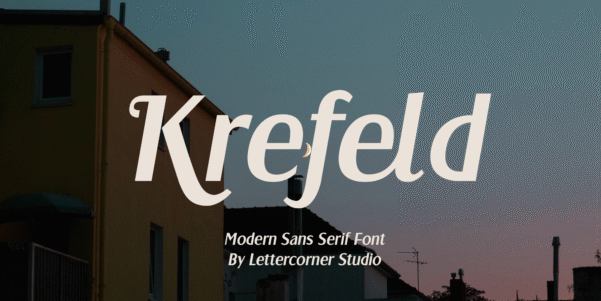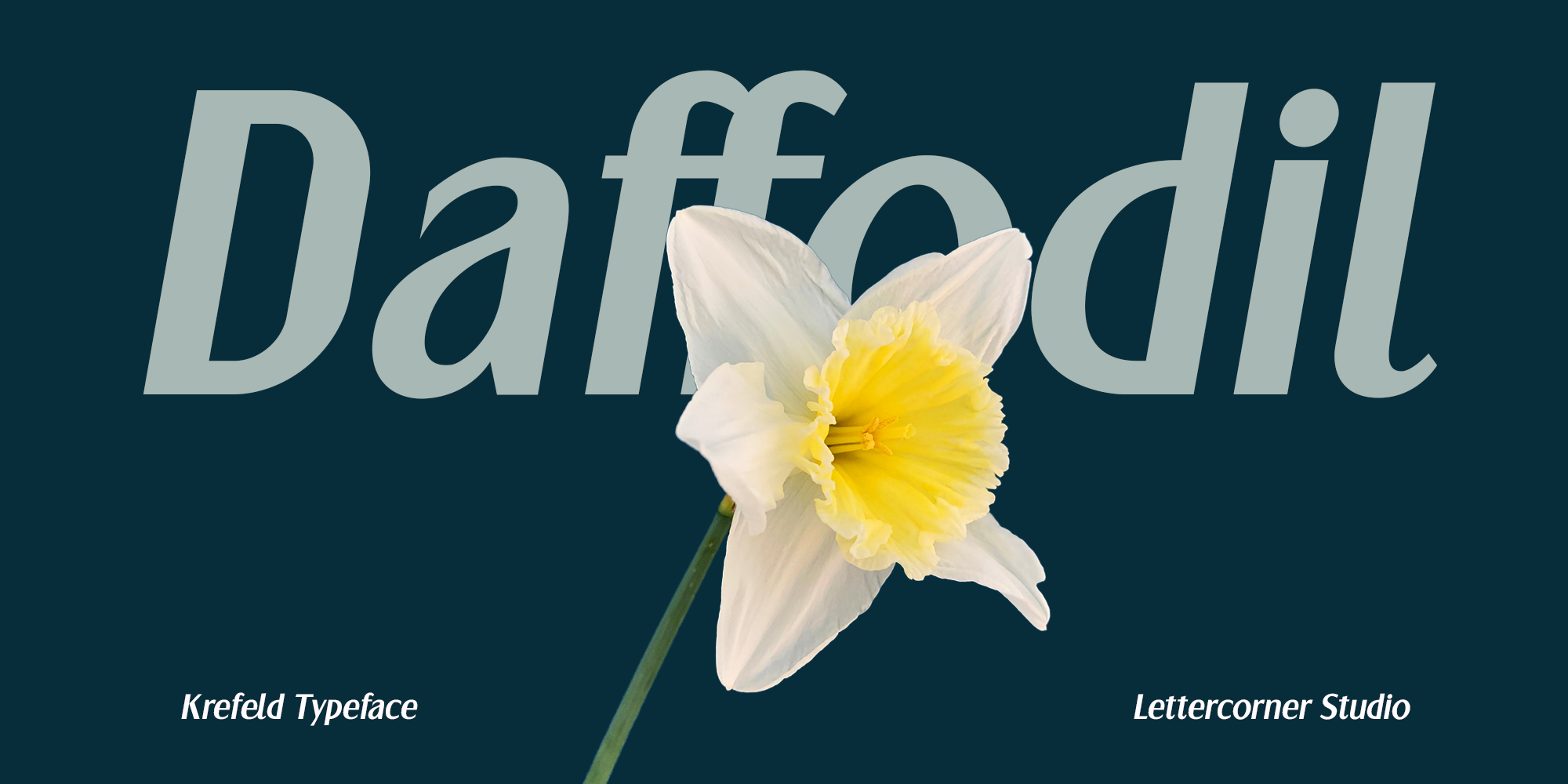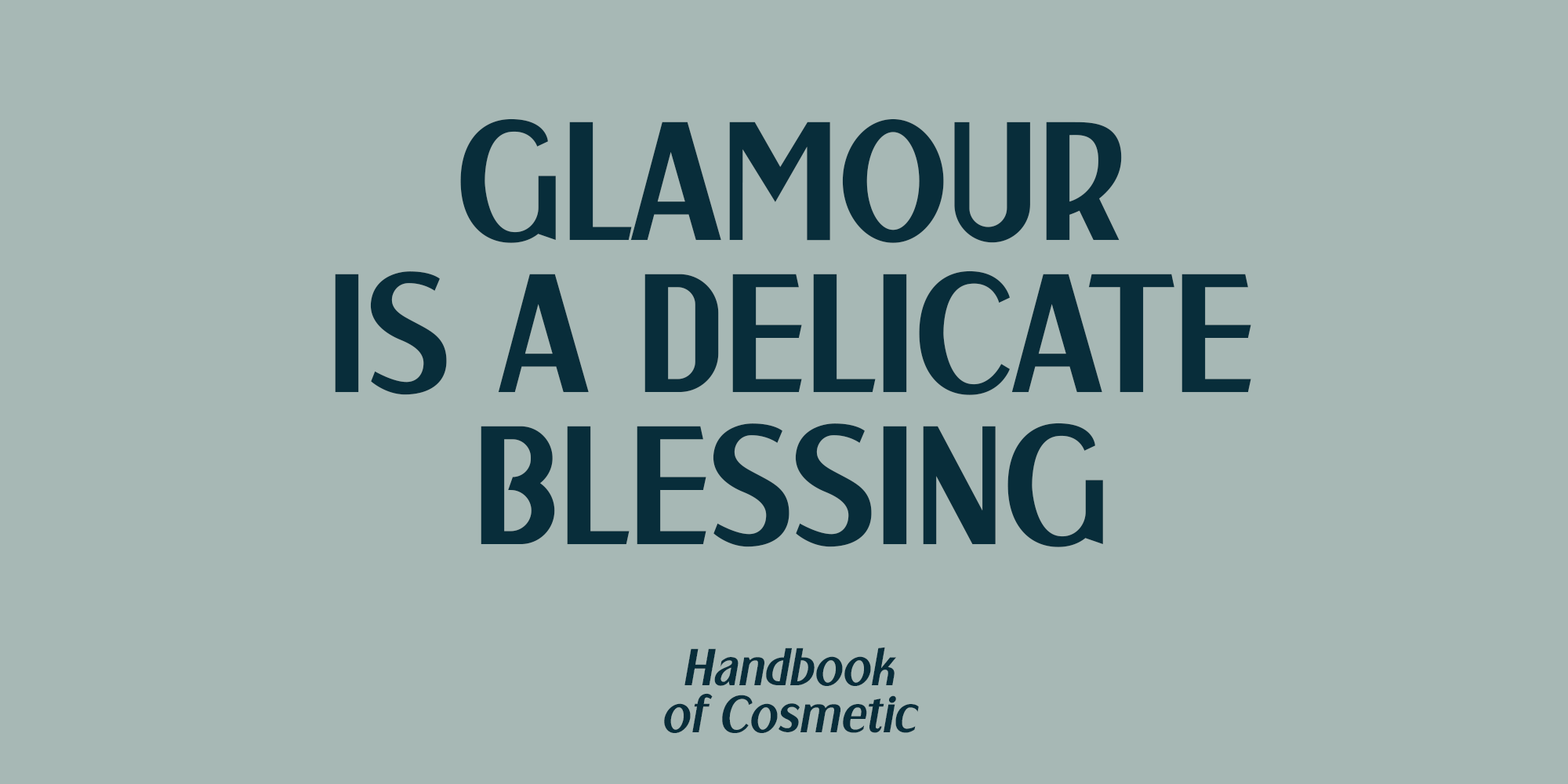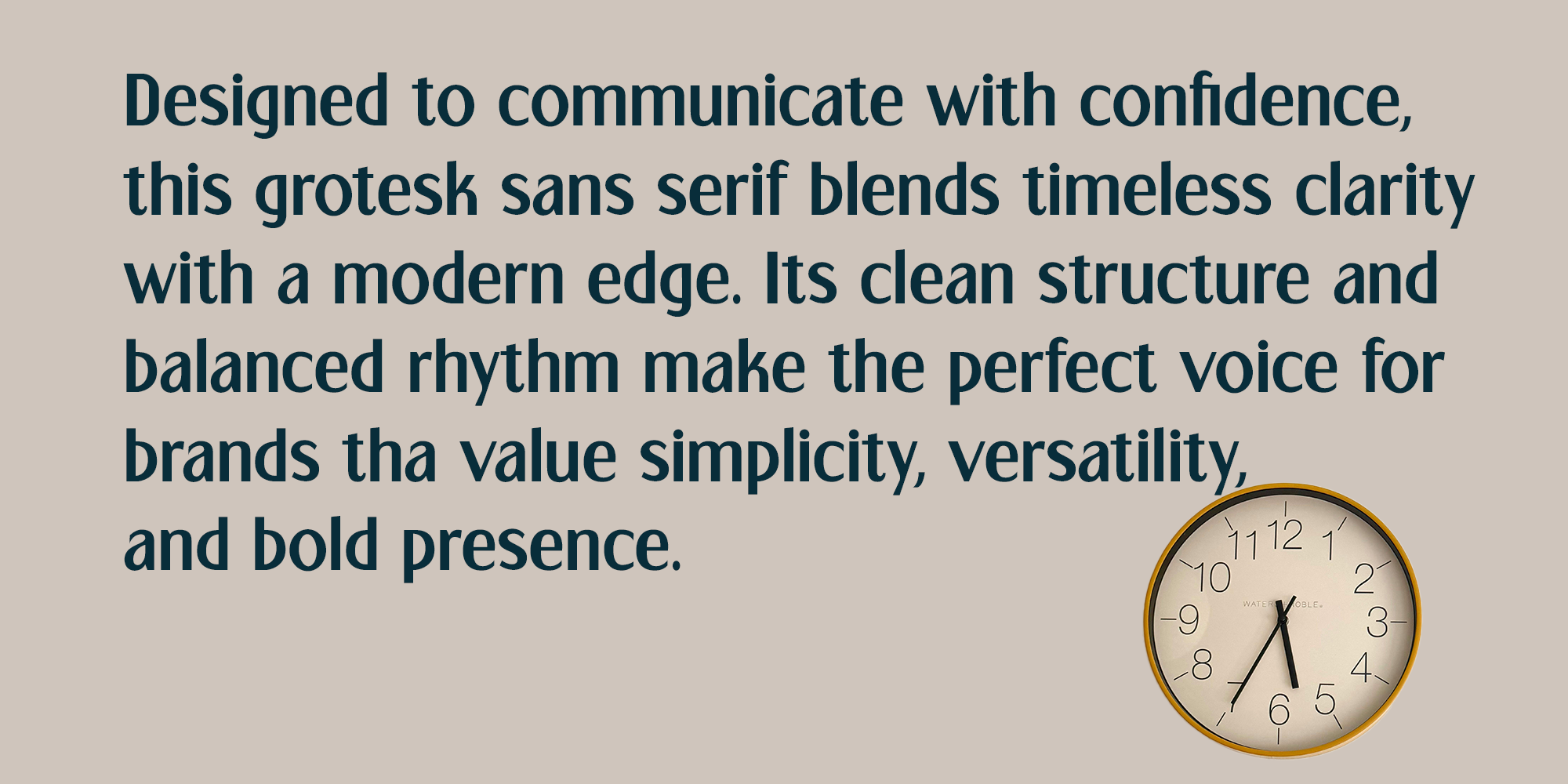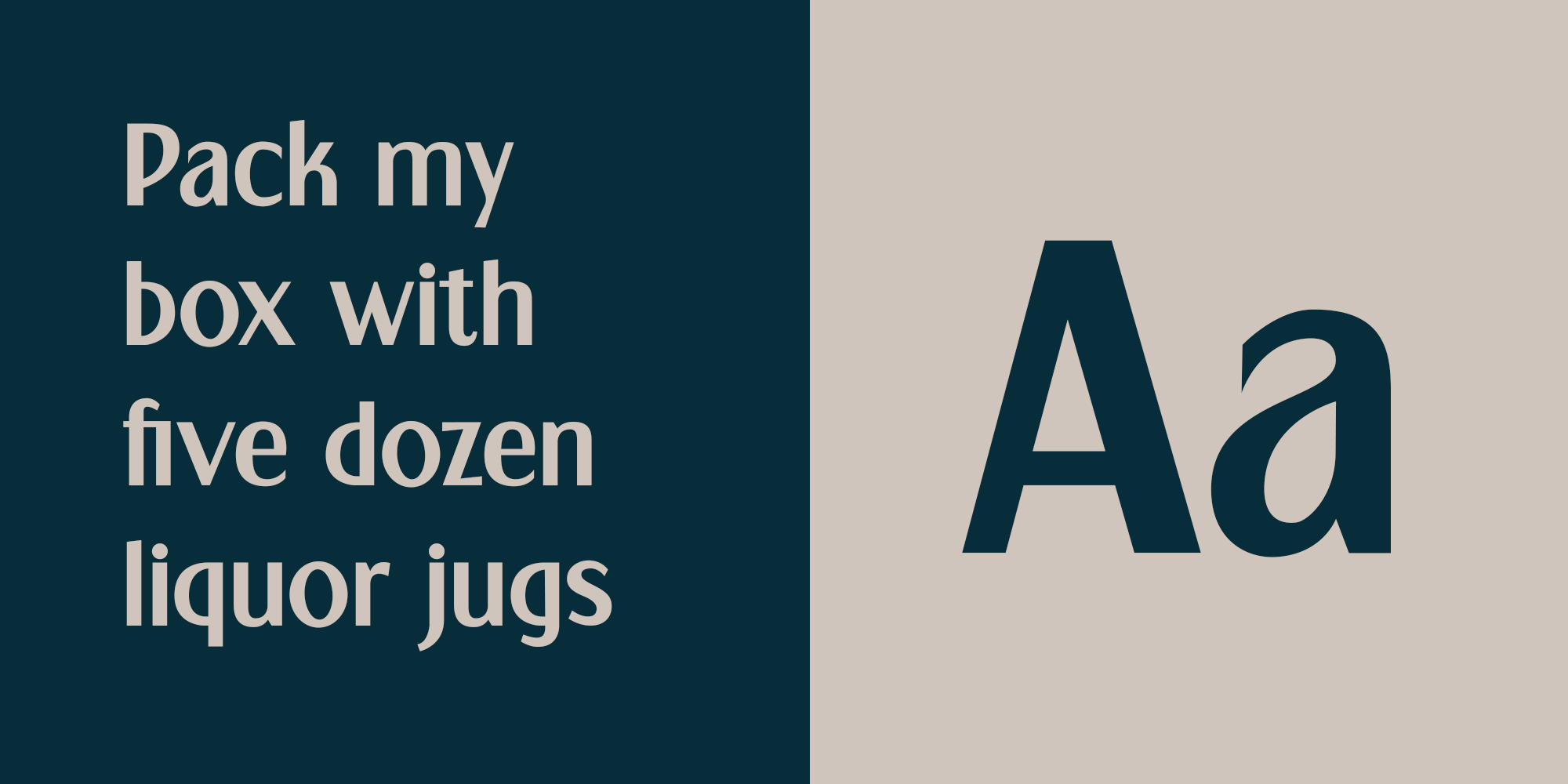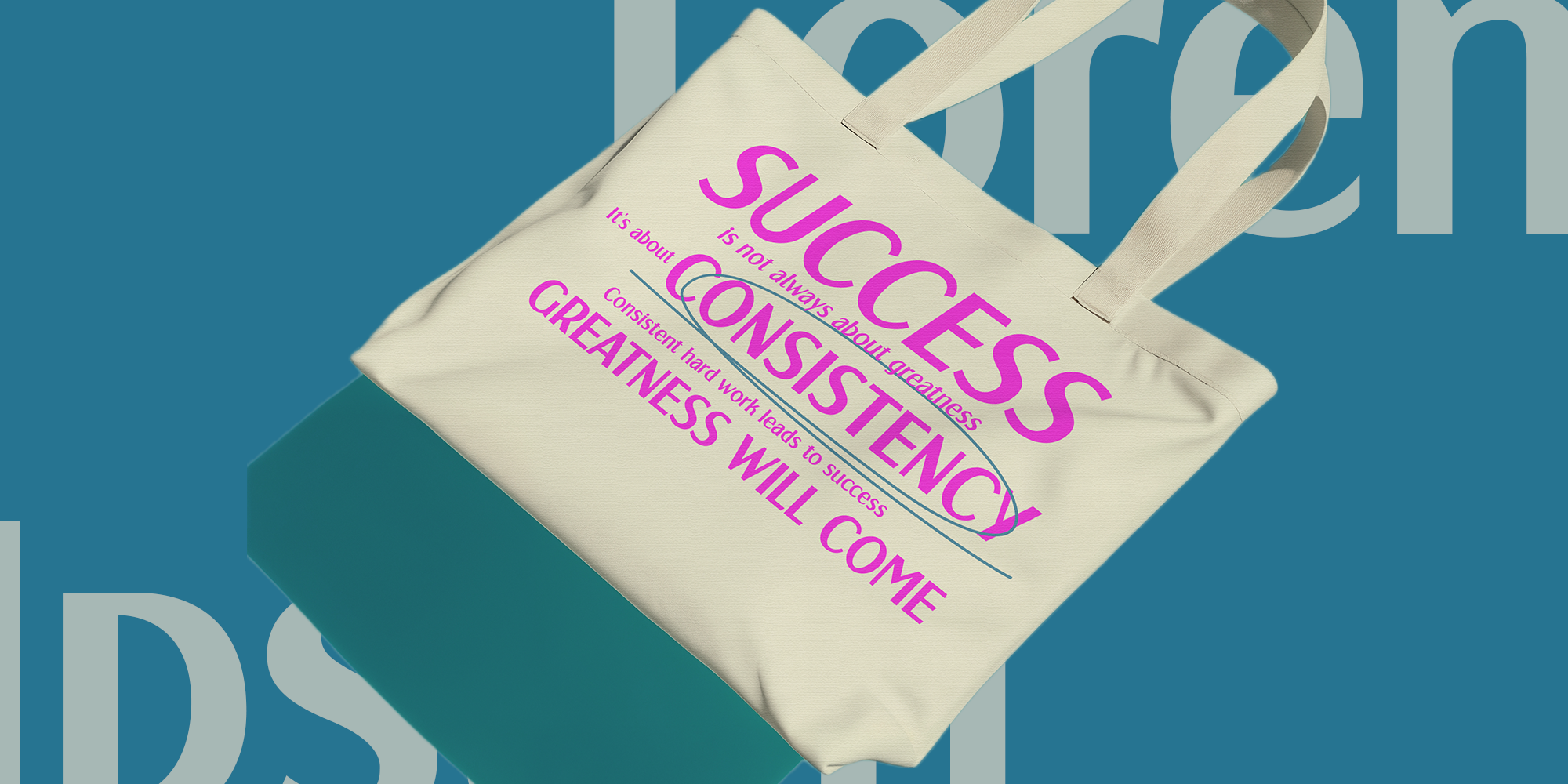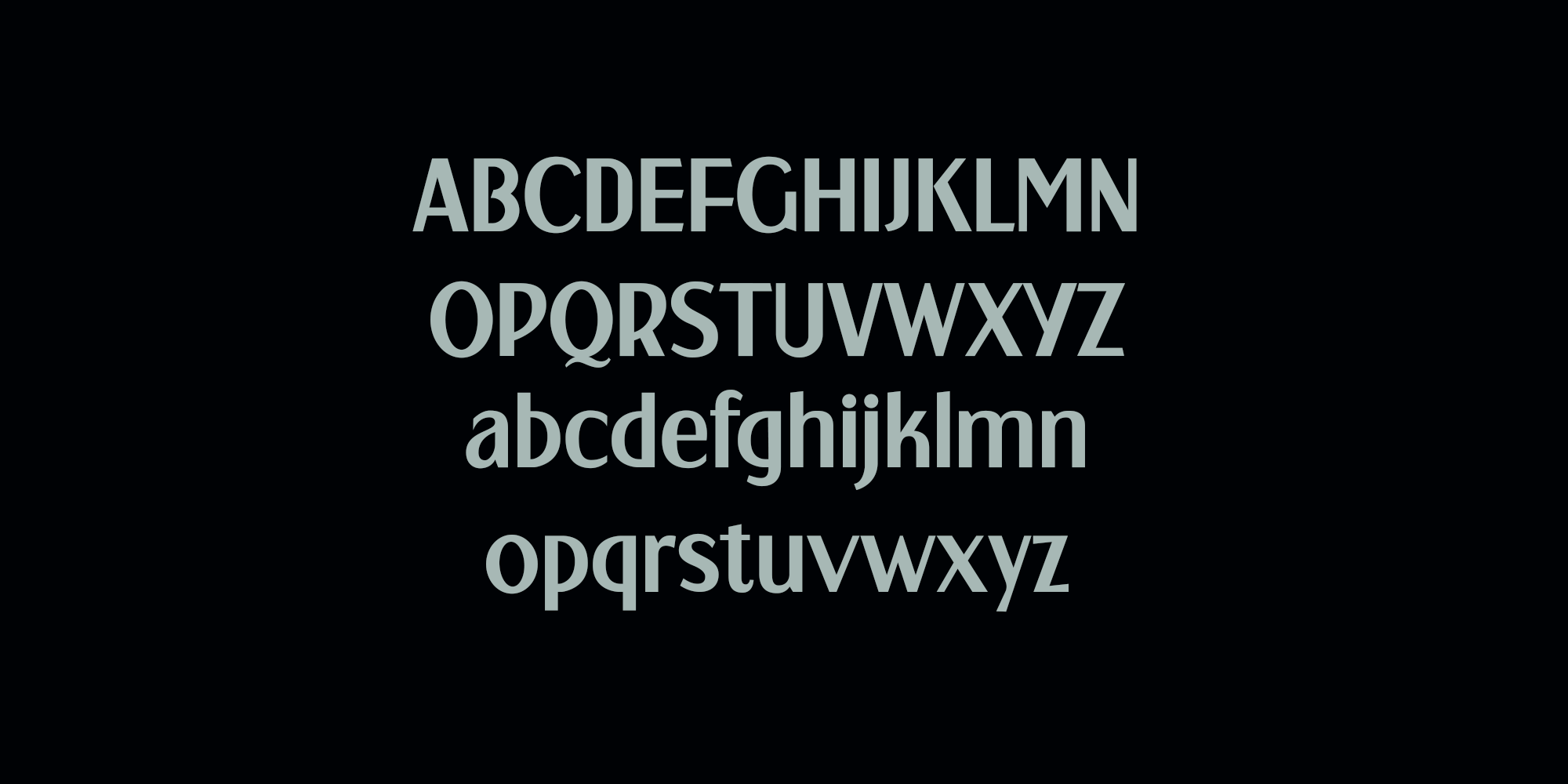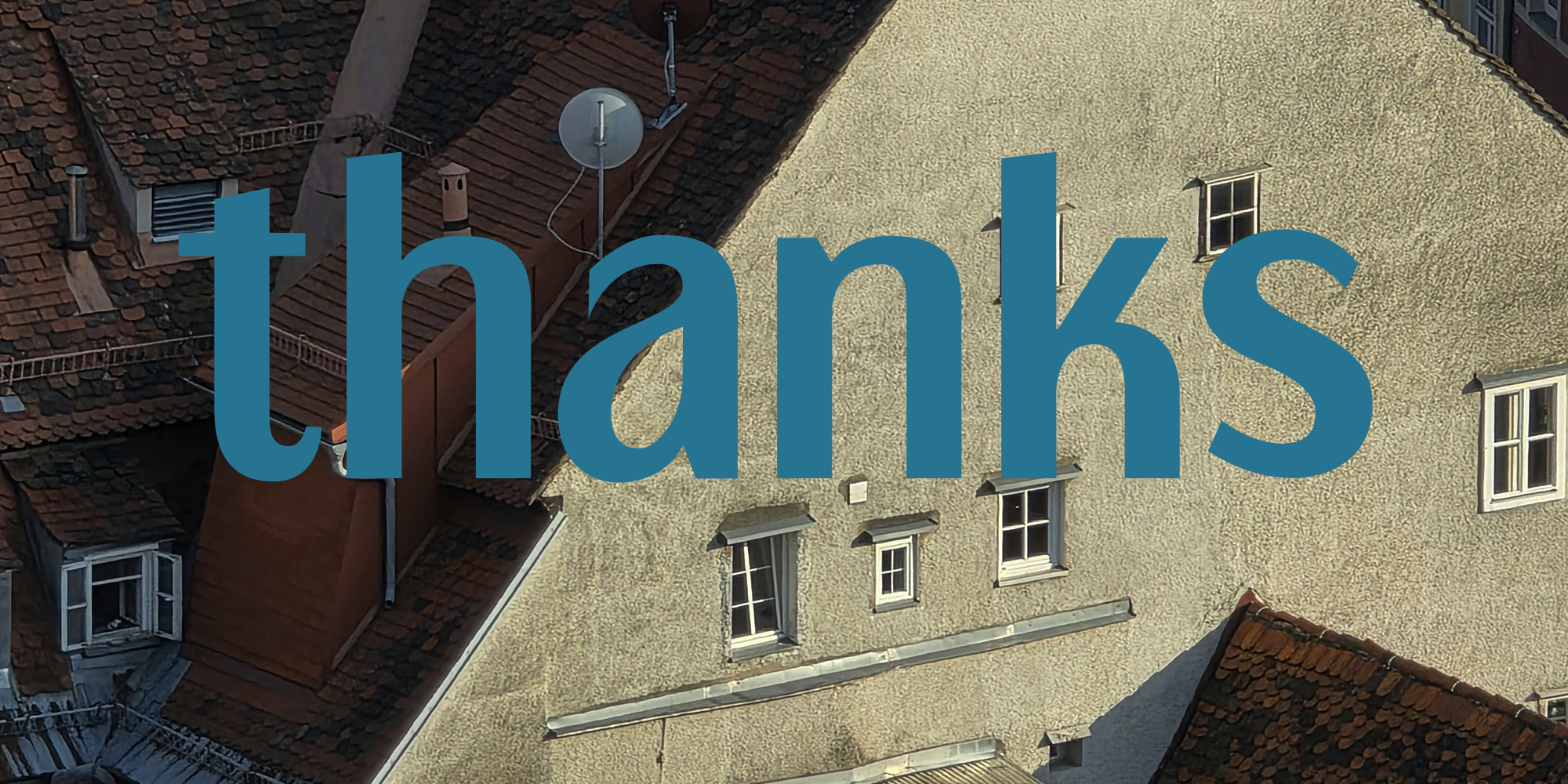
Krefeld
Introducing Krefeld
Krefeld is a modern sans serif typeface inspired by the timeless elegance of the German city of Krefeld, a place once celebrated as the “Velvet and Silk City.” Known for its rich textile heritage and refined aesthetic, Krefeld represents a balance between tradition and modern sophistication — and this typeface carries that same spirit.
With its clean lines, minimal details, and subtle sense of luxury, Krefeld brings a contemporary yet classic touch to your design projects. Its versatile character makes it perfect for branding, fashion editorials, high-end packaging, logos, invitations, magazines, or any creative work that seeks to combine clarity with elegance.
More than just a font, Krefeld embodies a lifestyle — refined, confident, and effortlessly stylish. Whether used for bold headlines or sleek identity systems, it allows your message to shine with a distinctive, luxurious presence that feels both modern and timeless.